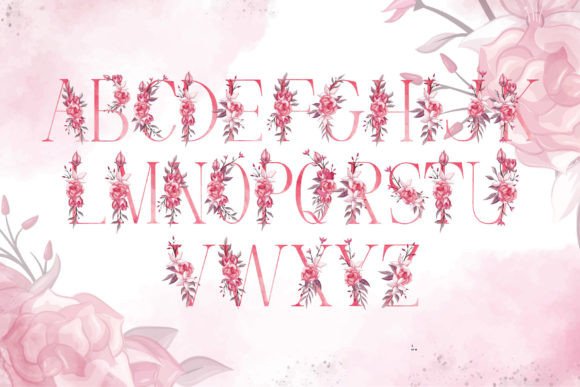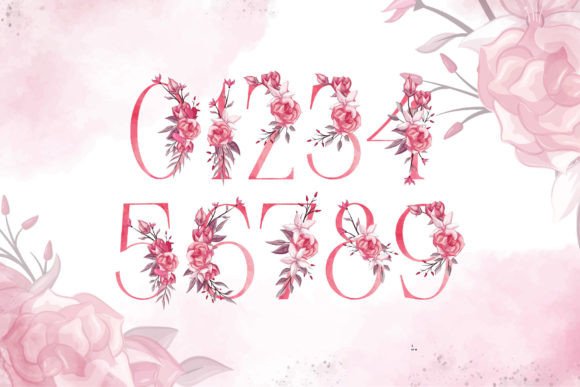
Introduction to Rose Valentine Font
The “Rose Valentine Watercolour” font is a unique and elegant font that beautifully captured the spirit of romance and love.
The letters were painted in a beautiful watercolor effect, blending a range of colors from light pink to deep red, giving the text depth and dimension The colors used in the font perfectly represented the beauty of a rose, making it an ideal font for Valentine’s Day or any romantic occasion.
Key Features of Rose Valentine Font
Why Choose Rose Valentine Font?